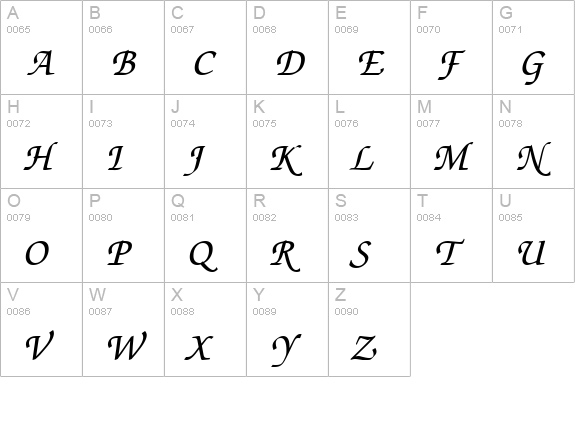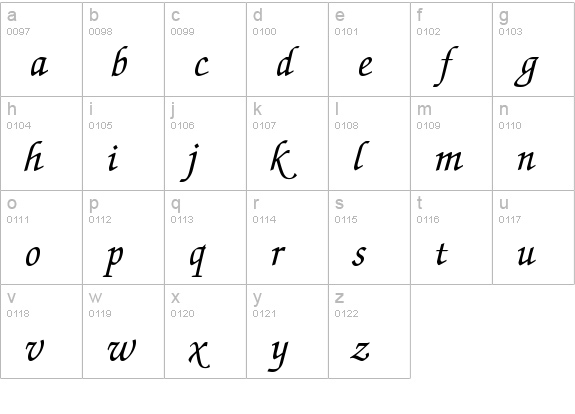
Zapf Chancery Medium Italic BT is a balanced, medium-weight, italic variant in the Zapf typeface family \xE2\x80\x94 well suited to sub-headlines, navigation, and balanced editorial work.
Zapf Chancery Medium Italic BT is a beautifully crafted font that exudes elegance and sophistication. Its distinctive italicized style adds a touch of flair and sophistication to any design project. The graceful curves and unique letterforms make this font a standout choice for invitations, branding, and other creative endeavors. What makes Zapf Chancery Medium Italic BT even more appealing is that it is available for free download at FontsMarket.com. This means that you can easily access this high-quality font without any cost, making it a valuable addition to your font collection. With its timeless appeal and versatile usage, Zapf Chancery Medium Italic BT is sure to elevate your designs and leave a lasting impression on your audience.